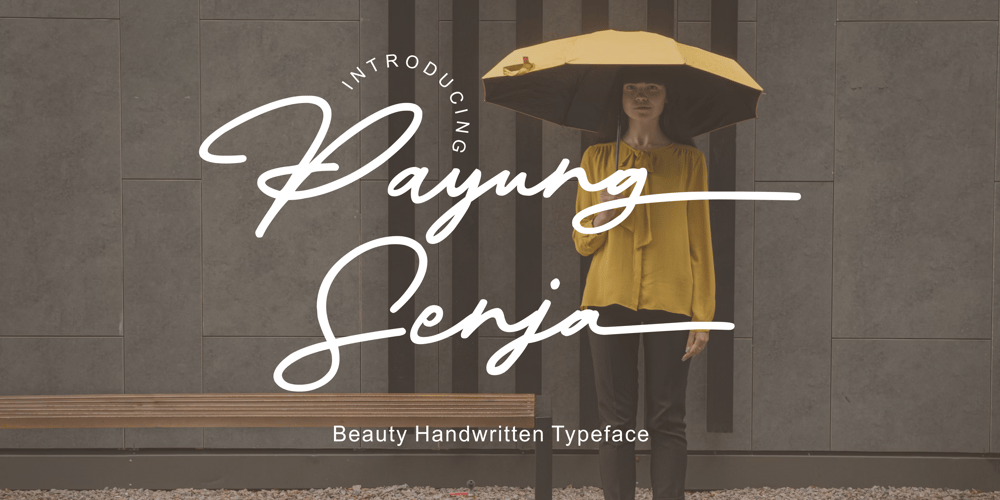
Payung Senja Font Family was designed by Zamjump and published by Zamjump. Payung Senja contains 1 styles and family package options. Introducing, Payung Senja is a beautiful handwritten typeface with an elegant style that is here to give a luxurious impression to your designs, made with consistent strokes to produce works that enhance your designs, complete with alternative ending swashes that will add to the luxurious impression. impact on your design.Payung Senja is perfect for Branding, Logos, Magazines, crafts, quotes, book covers, wedding invitations and more.